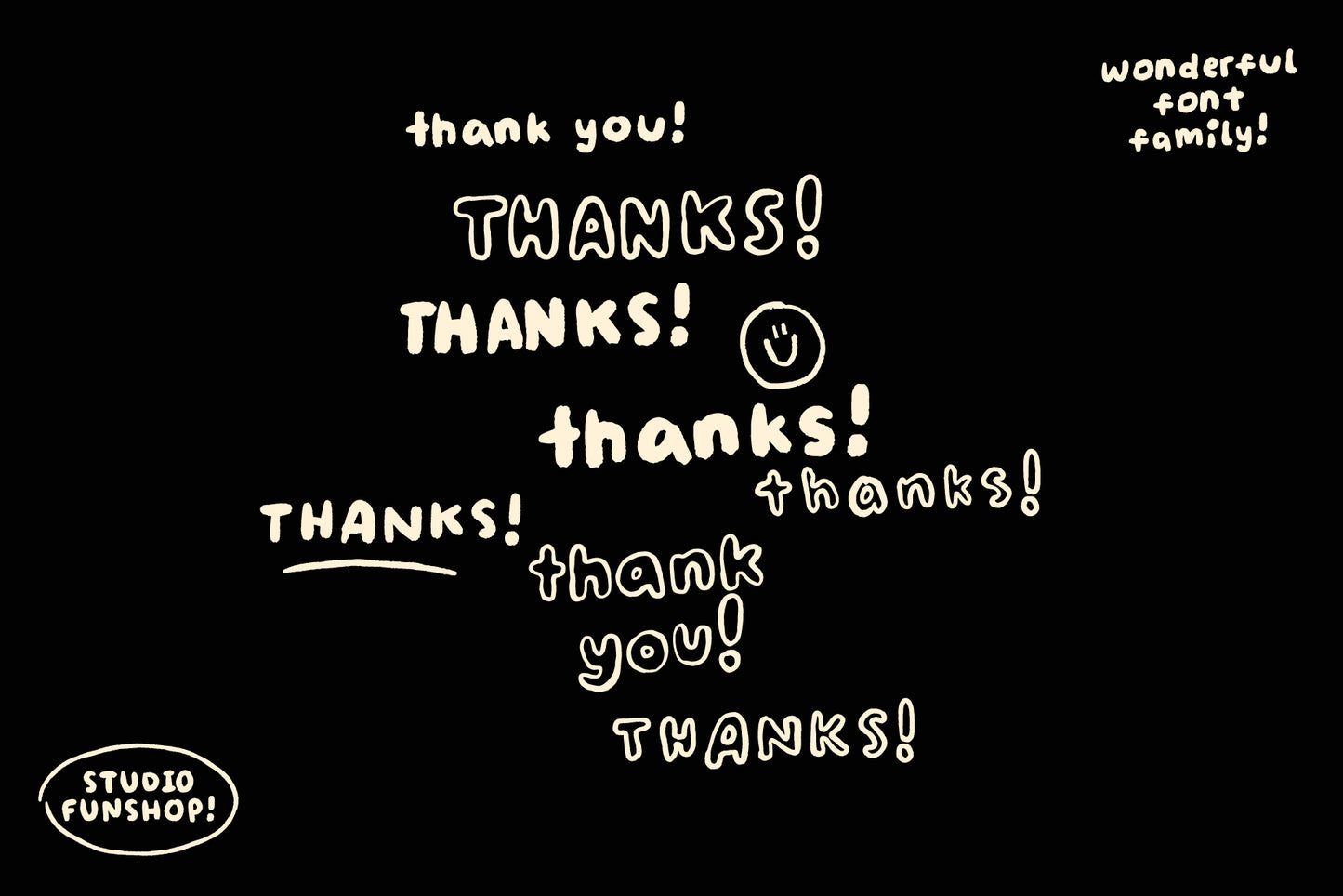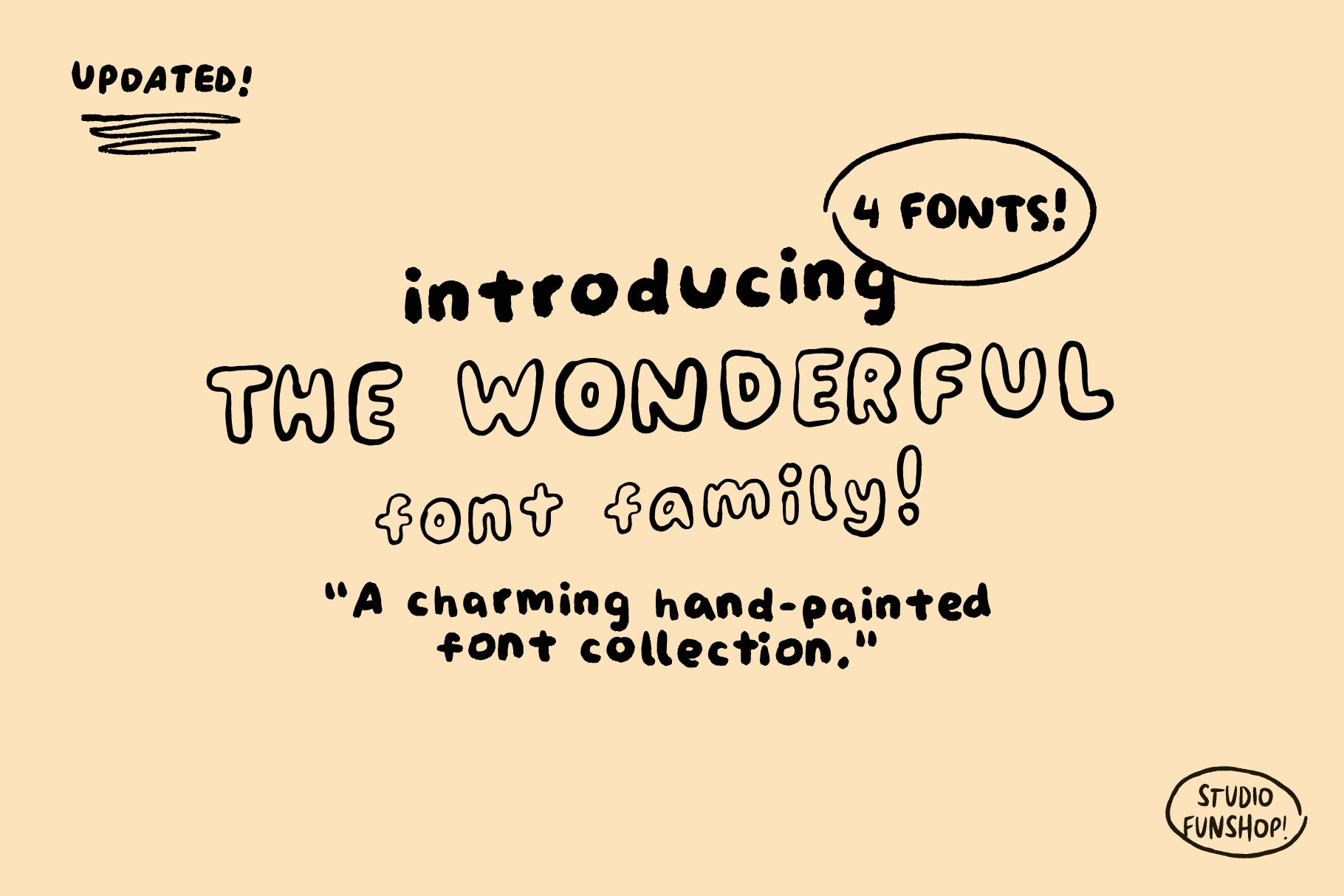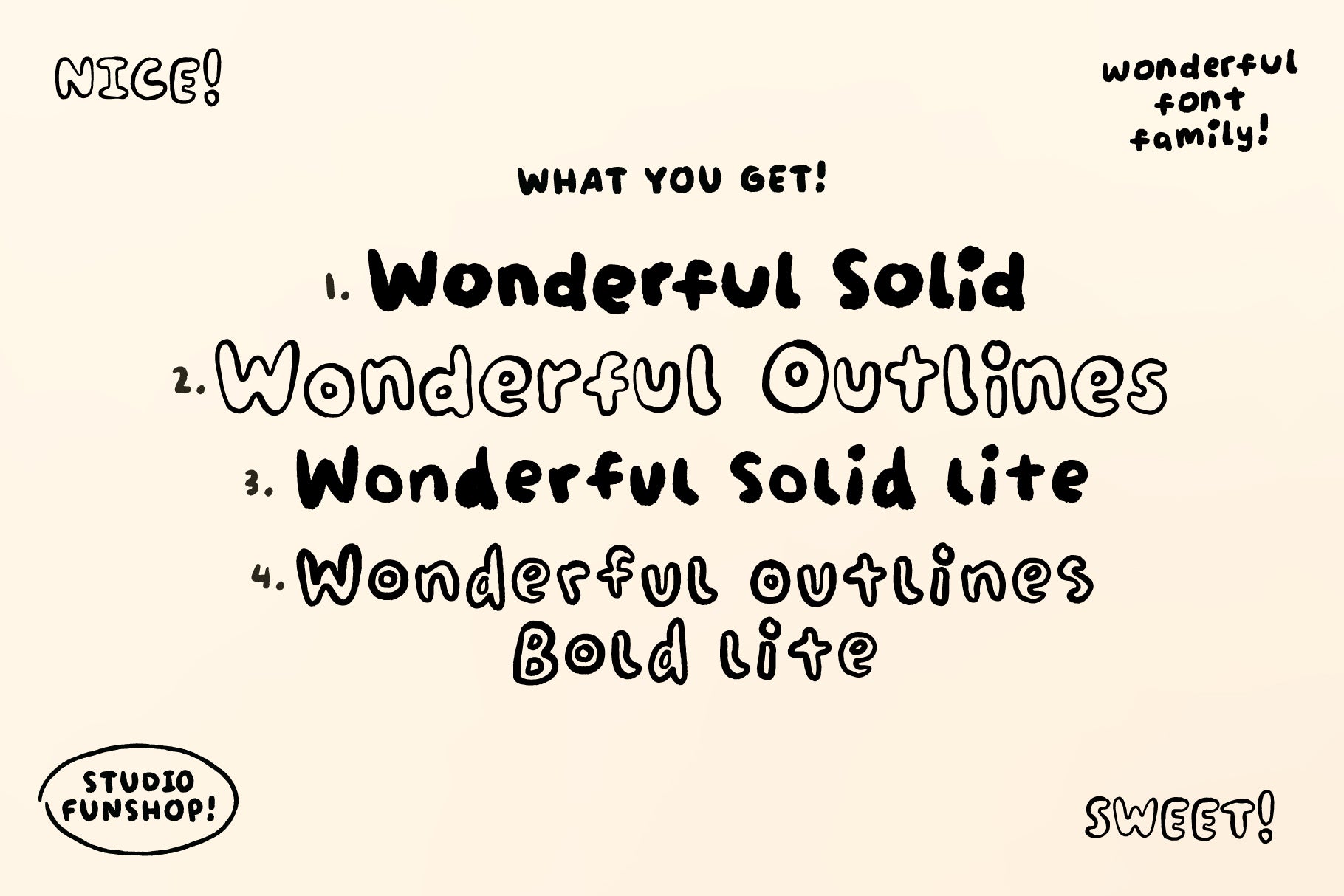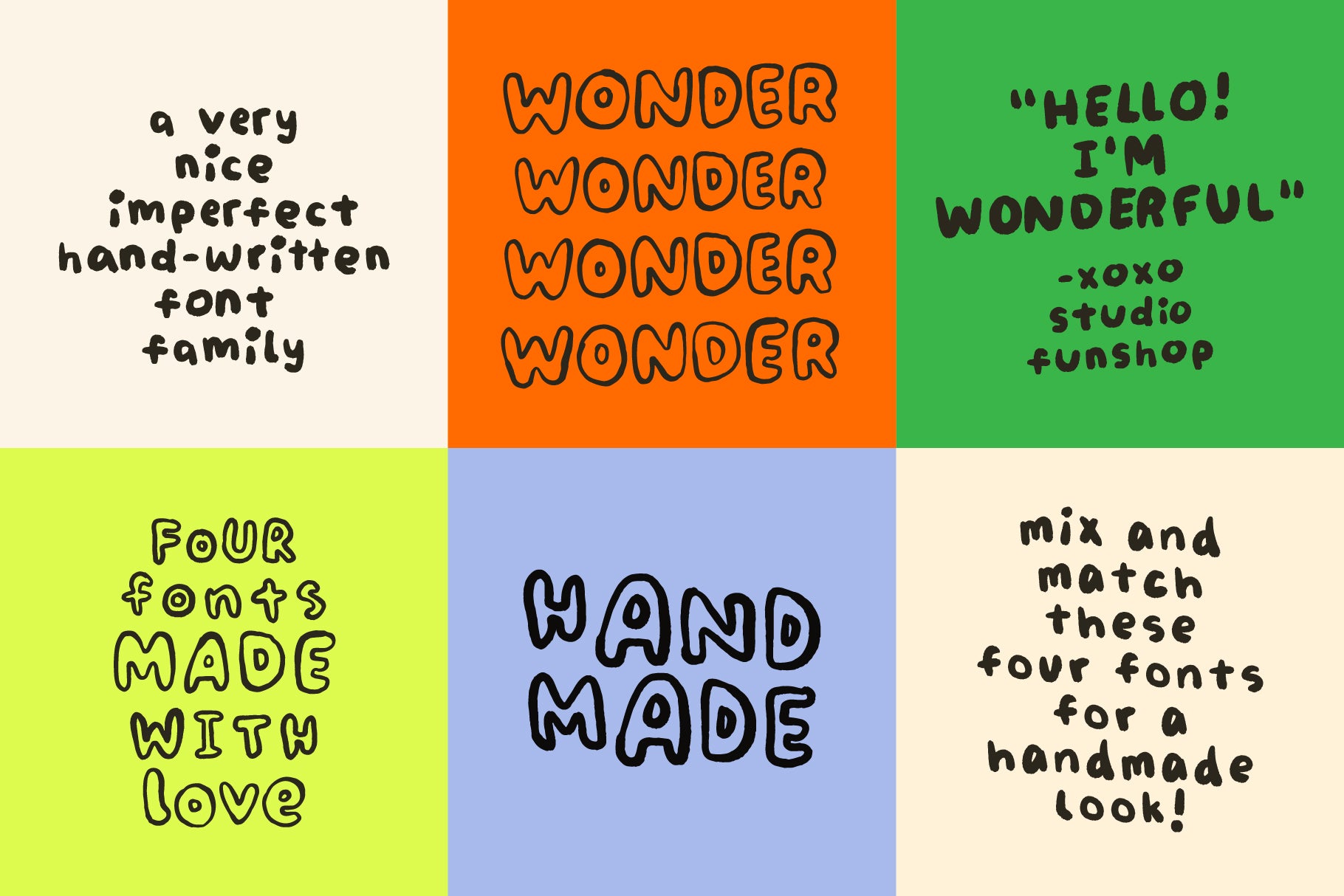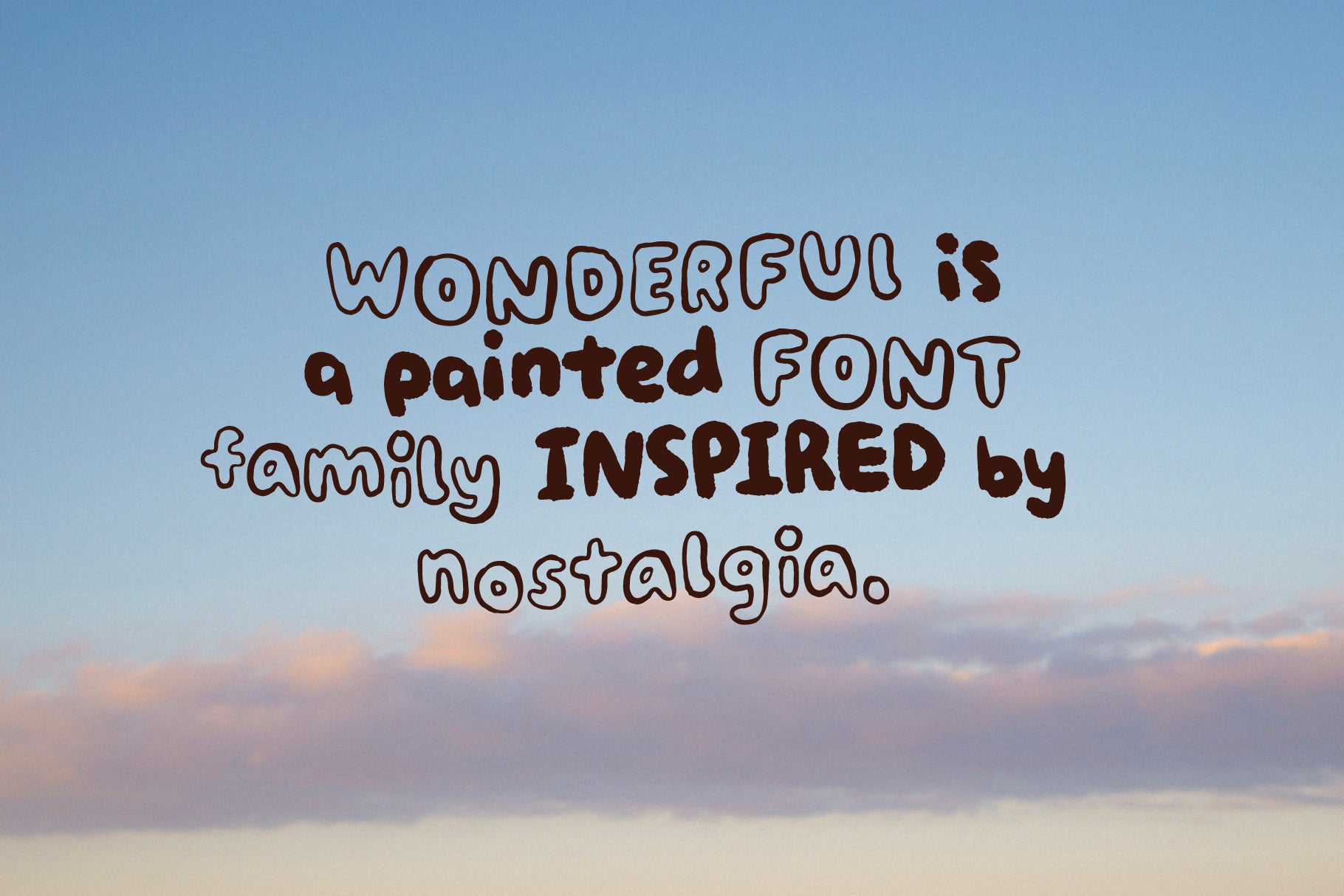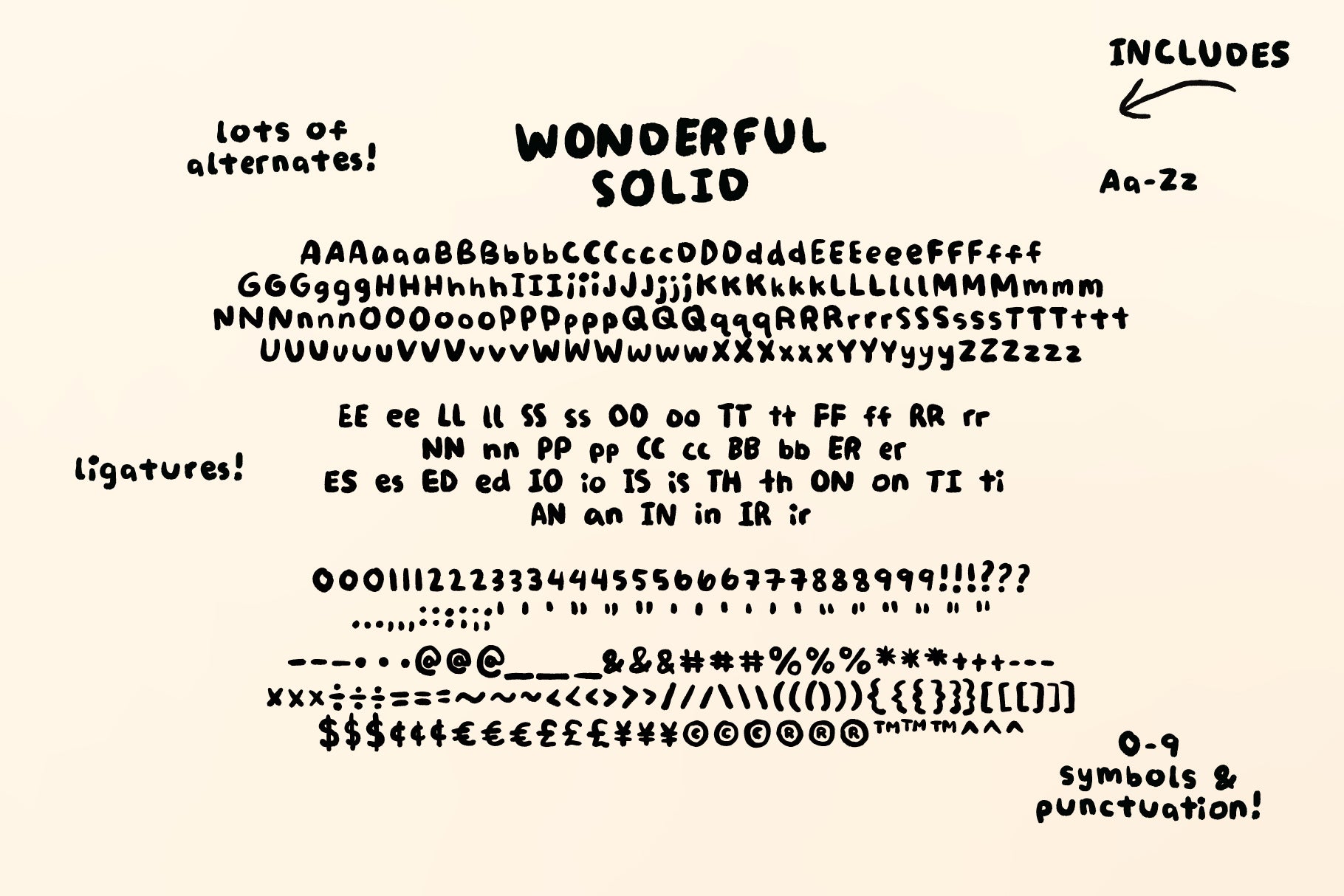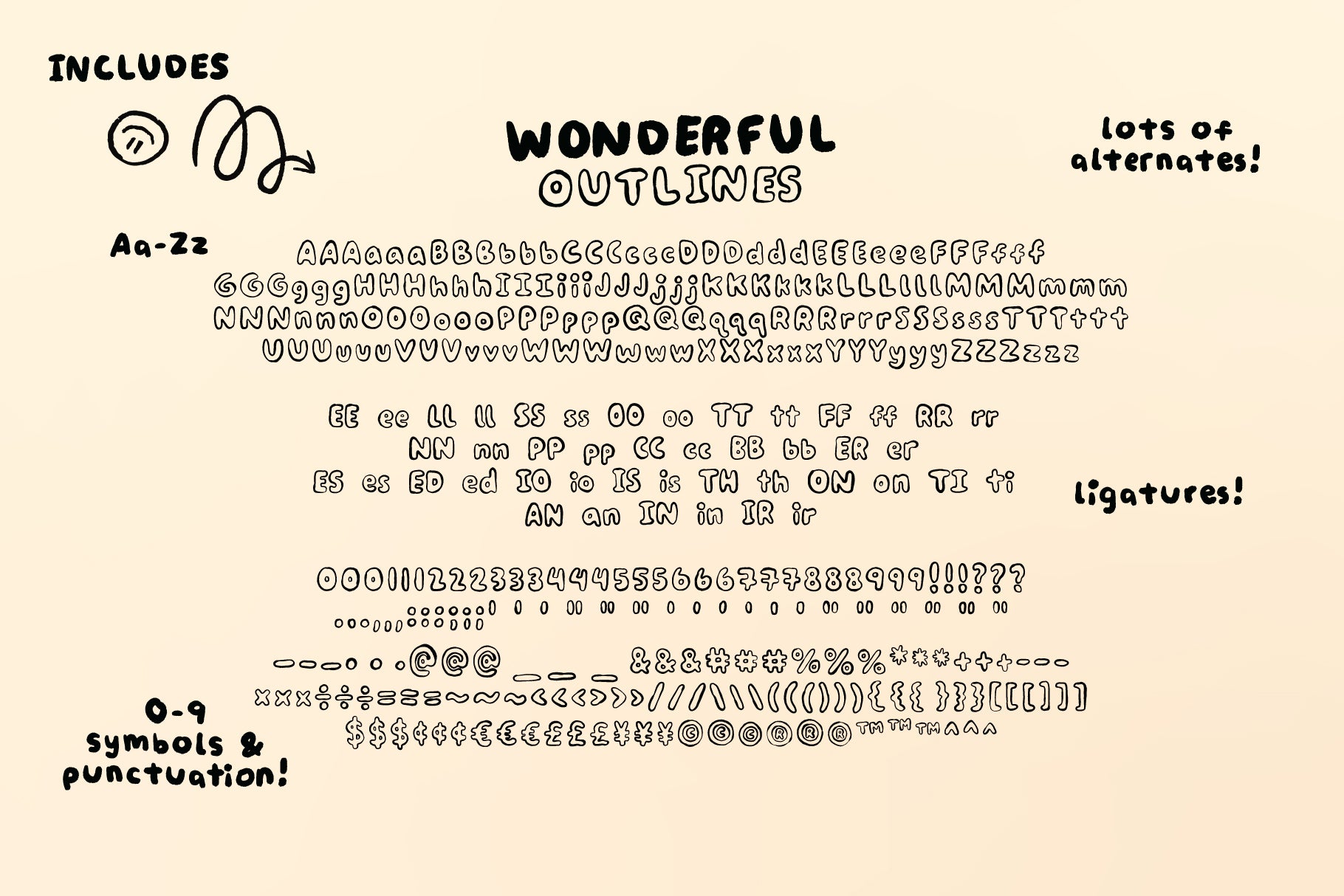
Wonderful - Handwriting Font Family
Painted, Handwriting, Goodness! Add a handmade touch with this handwriting font family.
Wonderful is a realistic handwritten font family inspired by nostalgia! Works great for display, quotes, notes, layered over photos, or mixed with illustrations!
Each character was hand painted by me to get those wonderful handmade variations that make this font unique. Includes alternates for ultimate hand-lettered wonderfulness.
What's in the fonts?
- Solid and Outlines Styles: Uppercase Letters A-Z! Lowercase Letters a-z! Numbers! Symbols! Punctuation! Multiple Alternate Characters! Ligatures! (see slides!)
- Bonus "Lite" Styles: Uppercase Letters A-Z! Lowercase Letters a-z! Numbers! Symbols! Punctuation! (see slides!)